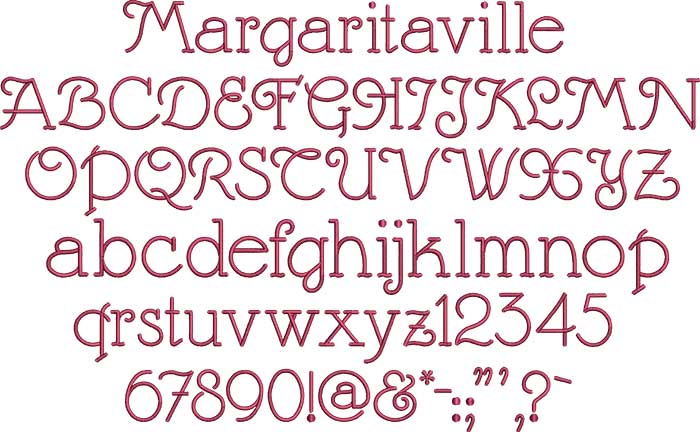
BX Embroidery Font: Margaritaville
BX Embroidery Font: Margaritaville Font Bundle (4 sizes) is a decorative, curly serif machine embroidery font that includes A-Z, a-z, 0-9 and punctuation; 4 sizes.
BX Embroidery Font: Margaritaville is a decorative, curly serif machine embroidery font that includes A-Z, a-z, 0-9 and the following punctuation: `!@#$&*():;”‘,.? (78 total characters).
Each character in this alphabet is individually manually digitized; we do not use a TrueType to Stitches conversion utility to create our fonts. Additionally, stitch attributes such as stitch type, density, compensation, and underlay are optimized for each size available. Choose the size closest to what you need. Shrinking the smallest size is not recommended.